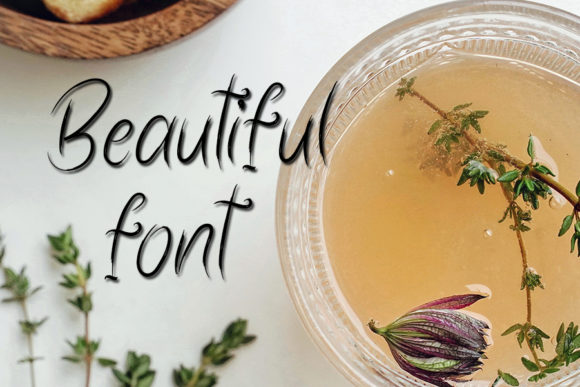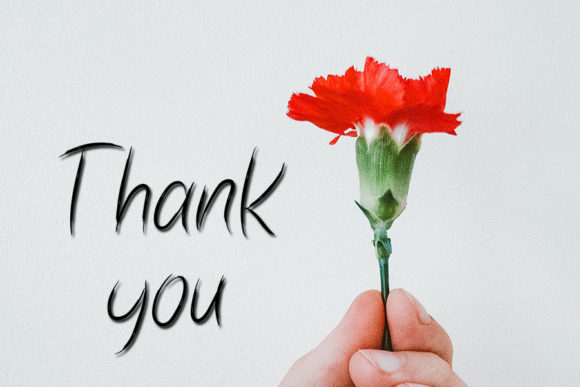
Marshandam Font
About Marshandam Font
Marshandam is a tall and thin handwritten font. Designed to become a top choice, this font has the potential to bring each of your creative ideas to the highest level!